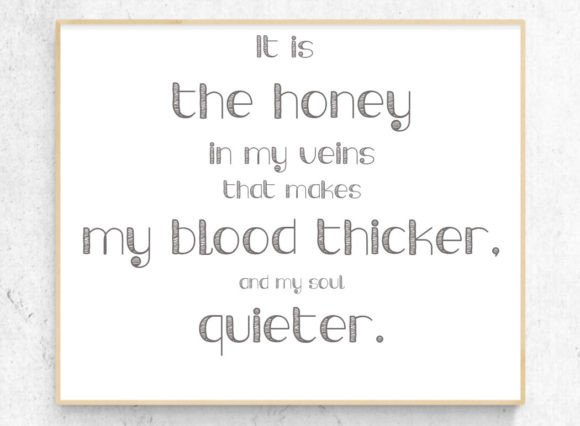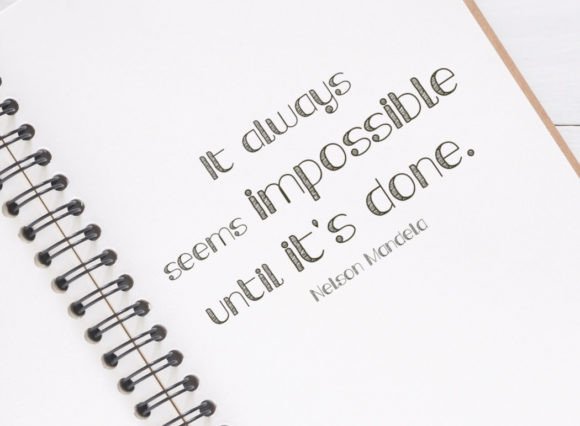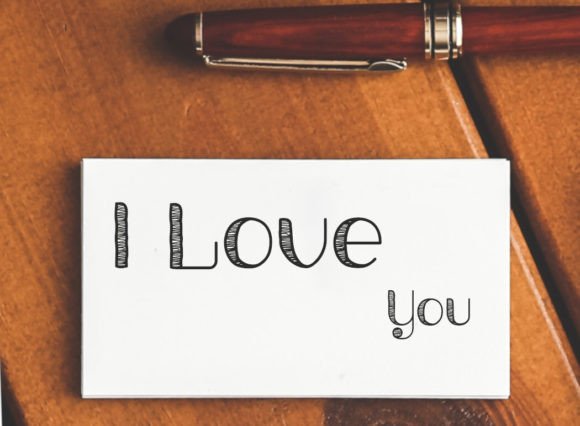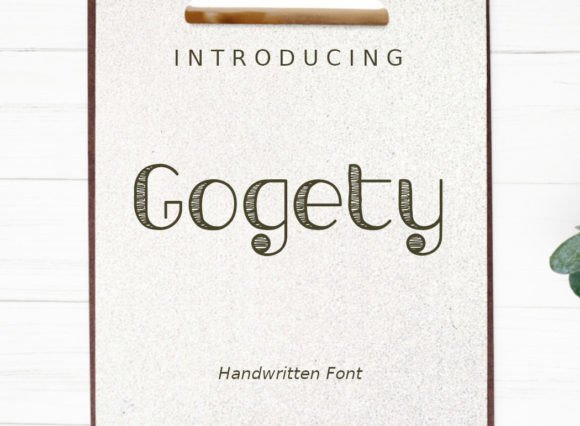
Introduction to Gogety Font
Gogety is a realistic handwritten font with beautiful natural pencil scratch.
It is the best typographic for classic or natural theme projects Suitable for wedding invitation, any greeting cards, quotes, headers, or any design that needs natural and personal touch.
Key Features of Gogety Font
Why Choose Gogety Font?